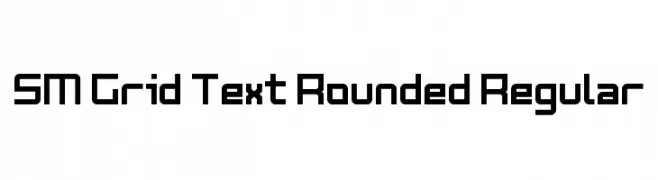
A sleek, modern sans-serif font with a geometric and minimalist design.
A sleek, modern italic font with a geometric and dynamic style.
A sleek, modern, extra-light italic font with a futuristic and minimalistic design.